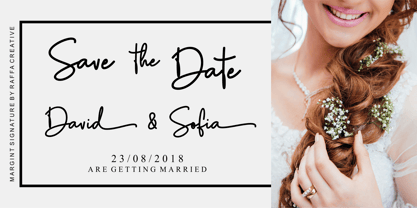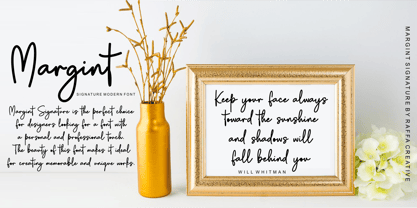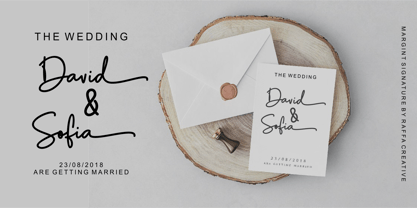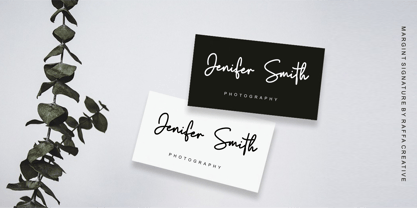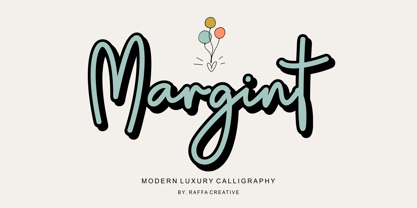
Margint
Margint Signature is a handwritten script font with elegant and modern characteristics. This font is designed to give a luxurious and personal impression, like a signature made with a fine ink pen. Each letter has soft details and a natural flow, making it perfect for a variety of creative projects.
Margint Signature is the perfect choice for designers looking for a font with a personal and professional touch. The beauty of this font makes it ideal for creating memorable and unique works.